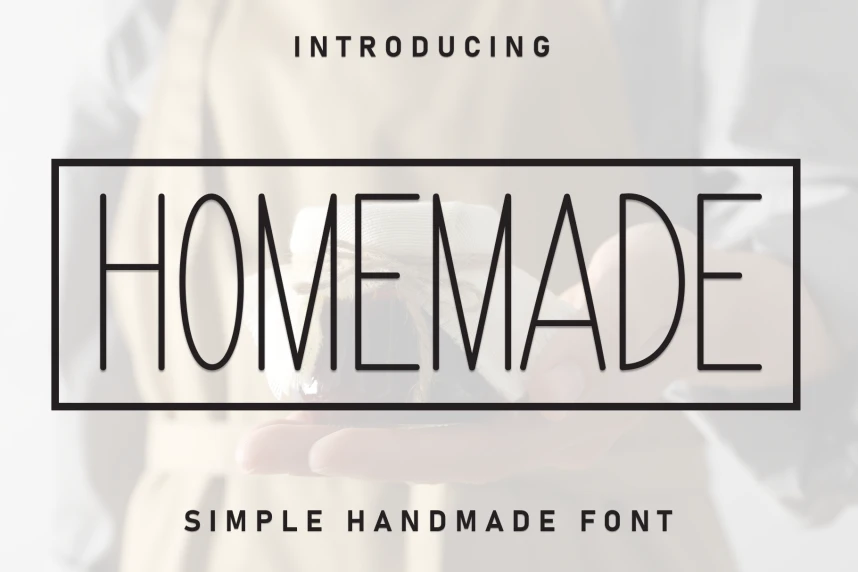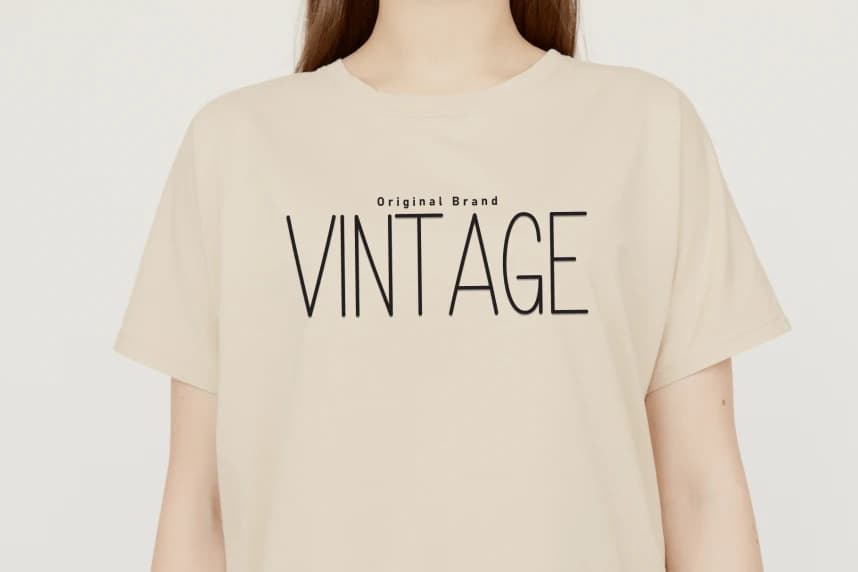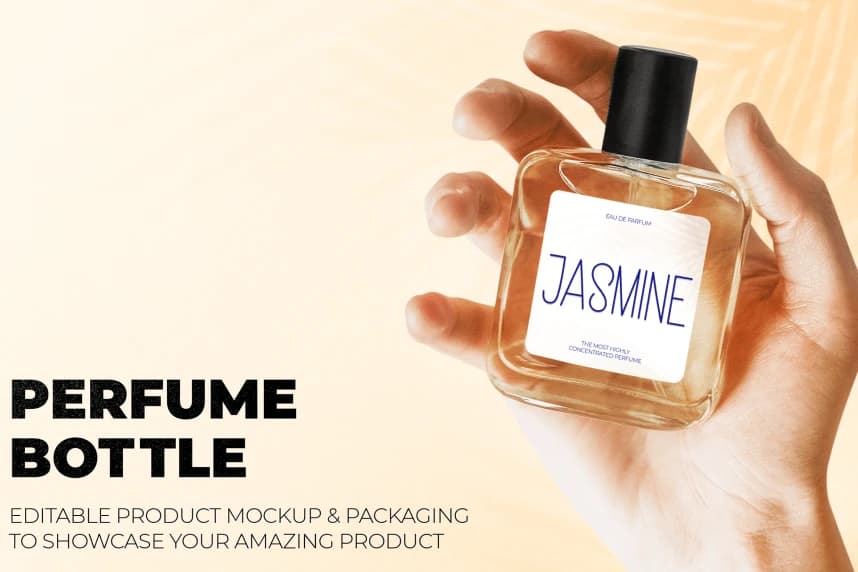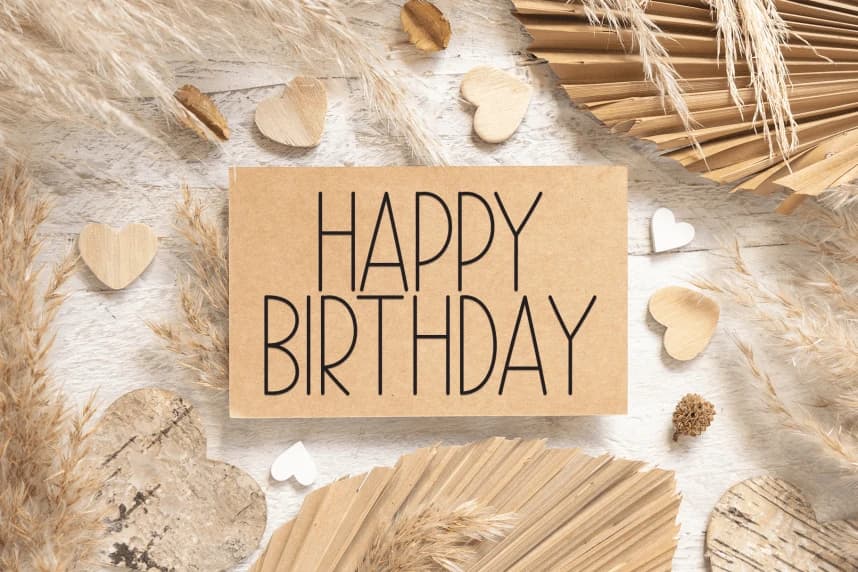
Homemade Handmade Font
Homemade Handmade Font is a sweet and friendly handwritten display font. Cute and fun, this font is ideal for writing wedding invitations, cards, or any other design that might need a playful touch!